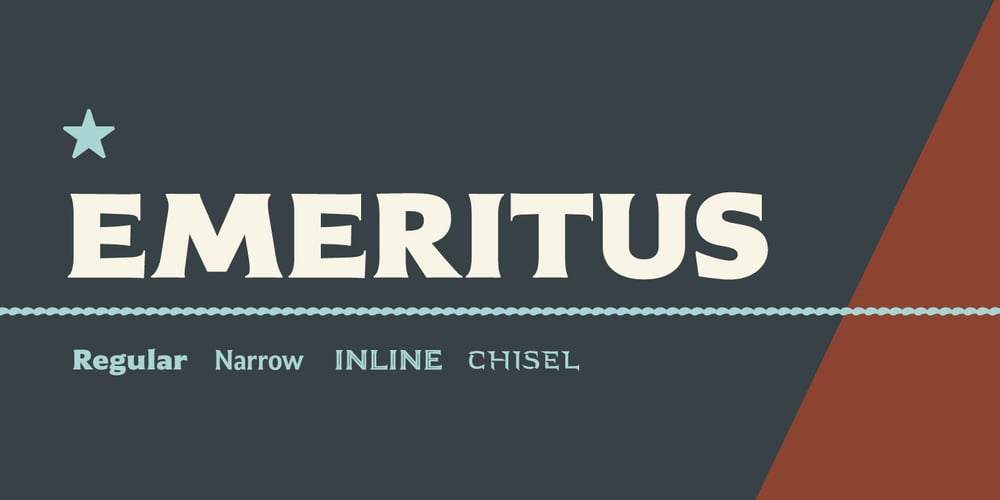
Emeritus Font Family was designed by Galen Lawson and published by District. Emeritus contains 12 styles and family package options. Emeritus is born from the carved letters found on buildings and monuments in Washington, DC. Muscular and low contrast but with assymetrical flared serifs that soften its stately presence. Small caps, inline caps, chiseled characters, and multiple weights and numerals offer an array of typographic voices. Notably academia, military, monumental, automotive, logos, signage, and so on.